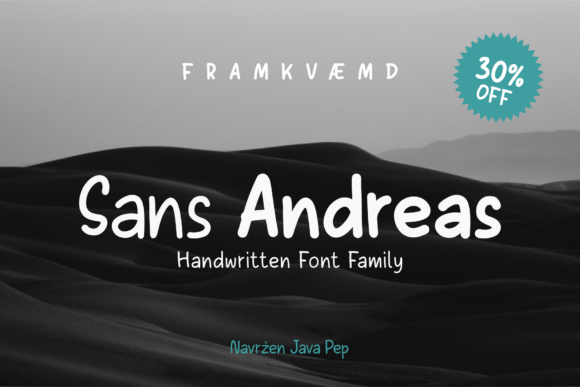
Introducing Sans Andreas, the font that dances off your screen with its captivating curves and energetic style! Dive into the world of creativity and design with this exquisite sans serif font, meticulously crafted by JavaPep. Sans Andreas is a typographic masterpiece, ready to ignite your imagination and elevate your projects to new heights.
Embrace the boundless possibilities of Sans Andreas, perfect for a diverse array of creations. Its seamless flow and playful personality bring a touch of elegance and vitality to your designs. From captivating logos that leave a lasting impression to eye-catching social media posts that demand attention, Sans Andreas is your secret weapon to stand out from the crowd.
Explore the enchanting ligatures and alternate characters, adding a touch of sophistication and individuality to your work. Sans Andreas is more than just a font; it's a gateway to a realm of creativity where your ideas come to life. Unleash your inner artist and transform your digital canvas into a masterpiece with Sans Andreas.